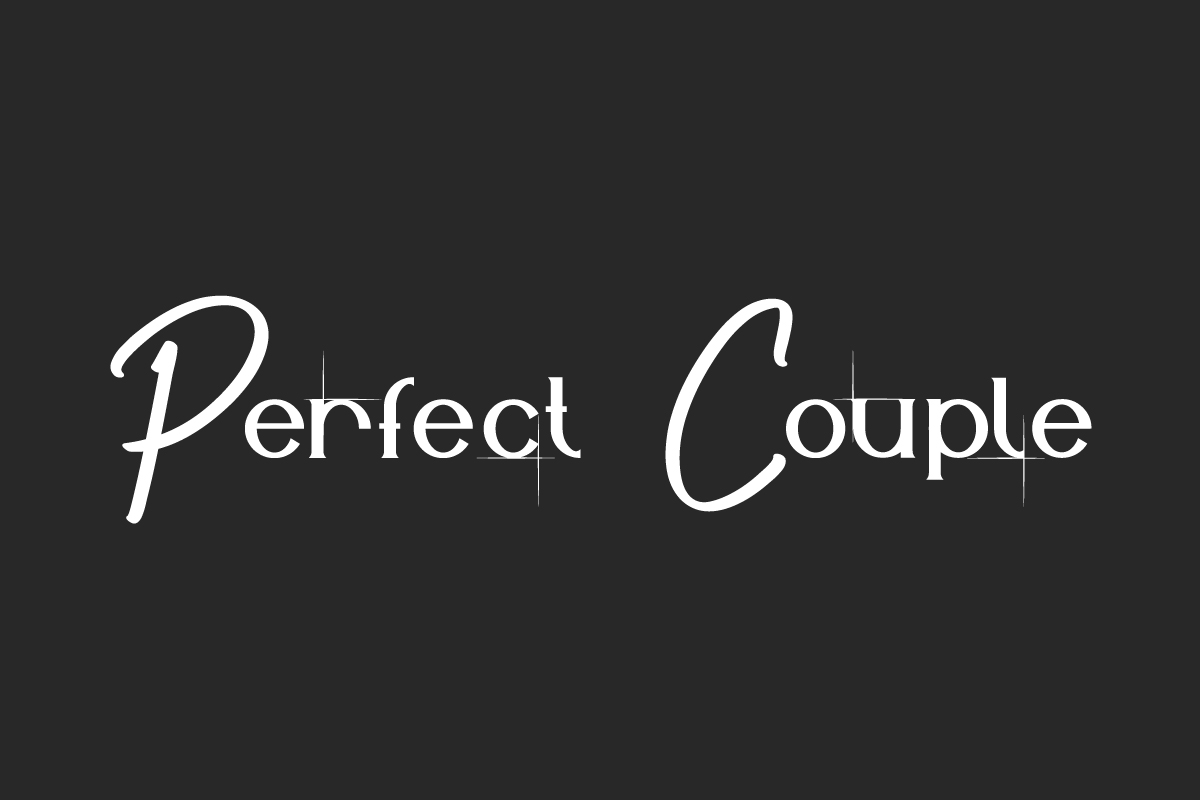
Perfect Couple Display Font
It’s a unique stylish display font with a combination of two styles on one font. This font has a handwriting style in uppercase and serif in lowercase. This font will be suitable for many industries such as bakery, cleaning service, construction, culinary, education, fashion, homeware, music, party rentals, publishing, and more!